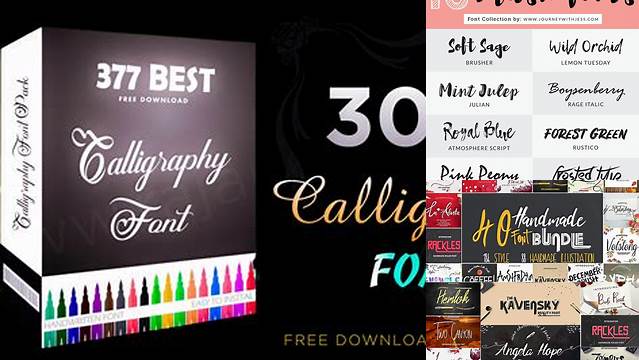
Free Font Package Download: Best Collection
Let's dive into the world of free font packages! Finding the perfect font can be a game-changer for any design project, whether you're crafting a stunning logo, designing a website, or creating eye-catching marketing materials. With countless options available, it's essential to know where to find high-quality, free font packages that won't break the bank. This article will guide you through the best resources and considerations for downloading and using free font packages to elevate your creative work.
3. Identifying High-Quality Fonts in Free Packages
Not all free font packages are created equal. Identifying high-quality fonts is essential to ensure your projects look professional. Look for fonts that are well-designed, with consistent letterforms and kerning (the spacing between letters). Check for a full character set, including uppercase and lowercase letters, numbers, punctuation, and symbols. A good font should also be available in multiple weights (e.g., regular, bold, italic) to provide versatility in your designs. Pay attention to the font's legibility, especially at smaller sizes. Readability is key for body text. Use font preview tools on websites like FontDrop to test the font with your own text and see how it looks in different contexts. Don't be afraid to experiment with different fonts and combine them to create unique typography. A little bit of effort in selecting high-quality free fonts can make a big difference in the overall impact of your designs.
7. Exploring Different Font Styles and Types
Free font packages come in a wide variety of styles and types, each with its own unique character and purpose. Serif fonts, with their small decorative strokes, are often used for body text because they are easy to read. Sans-serif fonts, without the serifs, are often used for headings and titles because they have a clean and modern look. Script fonts, which resemble handwriting, are often used for invitations and other decorative purposes. Display fonts, which are highly stylized and eye-catching, are often used for logos and posters. Monospace fonts, where each character takes up the same amount of horizontal space, are often used for coding and technical documentation. Experiment with different font styles and types to find the perfect fit for your project. Combine different fonts to create visual interest and hierarchy. A well-chosen font can enhance the overall message and aesthetic of your design.
8. Finding Free Fonts for Specific Languages
If you're working on a project that requires fonts for specific languages, finding free font packages that support those languages can be a challenge. Many free fonts only support basic Latin characters, so you'll need to look for fonts that include extended character sets or language-specific glyphs. Google Fonts is a great resource for finding free fonts that support a wide range of languages, including Cyrillic, Greek, Arabic, and many others. Font Squirrel also offers some multilingual fonts. When searching for fonts, use keywords like "Cyrillic font," "Arabic font," or "Japanese font" to narrow down your options. Be sure to test the font with your target language to ensure that all the characters are displayed correctly. If you can't find a free font that meets your needs, consider purchasing a commercial font that offers comprehensive language support.
9. Creating Your Own Font Package
While downloading free font packages is convenient, you can also create your own font package by combining individual free fonts that you like. This allows you to curate a collection of fonts that are specifically tailored to your design needs. Start by browsing websites like Google Fonts, Font Squirrel, and DaFont to find free fonts that you want to include in your package. Download the font files and organize them into a folder. You can then create a document that lists the fonts in your package, along with their licenses and any notes or recommendations for usage. This will make it easier to remember which fonts are included in the package and how they can be used. You can also create a preview image that shows the fonts in action. Sharing your font package with others can be a great way to give back to the design community. Just make sure that you have the necessary rights to distribute the fonts.
10. Optimizing Fonts for Web Use
If you're using free fonts on a website, it's important to optimize them for web use to ensure fast loading times and a good user experience. Large font files can significantly slow down your website, which can frustrate visitors and hurt your search engine rankings. To optimize your fonts, use a tool like Font Squirrel's Webfont Generator to convert your font files into web-friendly formats like WOFF and WOFF2. These formats are specifically designed for web use and are much smaller than traditional font formats like TTF and OTF. You can also use CSS to specify which font weights and styles should be loaded, which can further reduce file sizes. Consider using a Content Delivery Network (CDN) to host your fonts, which can improve loading times for visitors from different geographic locations. Finally, test your website on different devices and browsers to ensure that your fonts are rendering correctly. Optimizing free fonts for web use is an essential step in creating a fast and visually appealing website.
11. Pairing Fonts Effectively in Design Projects
Choosing the right font is important, but knowing how to pair fonts effectively is what takes your design to the next level. When working with free font packages, experiment with different combinations to find what works best for your project. A common technique is to pair a serif font with a sans-serif font. For example, you might use a serif font for the body text and a sans-serif font for the headings. This creates a visual contrast that helps to guide the reader's eye. Another approach is to use different weights of the same font family. For example, you might use a bold weight for the headings and a regular weight for the body text. This creates a subtle hierarchy that is easy on the eyes. Avoid pairing fonts that are too similar, as this can create a monotonous and uninteresting design. Also, be careful not to use too many different fonts in a single project, as this can create a cluttered and confusing look. A good rule of thumb is to stick to two or three fonts at most. Experiment with different font pairings to find what works best for your specific project and brand.
12. Finding Free Fonts for Logos and Branding
Your logo is the face of your brand, so choosing the right font is crucial. When searching for free font packages for logos and branding, look for fonts that are unique, memorable, and reflective of your brand's personality. Display fonts are often a good choice for logos, as they are designed to be eye-catching and attention-grabbing. However, make sure that the font is still legible, even at small sizes. Consider the overall tone and style of your brand when selecting a font. A serious and professional brand might opt for a clean and classic sans-serif font, while a fun and playful brand might choose a more whimsical and decorative font. Before settling on a font, test it in different contexts, such as on your website, business cards, and social media profiles. Make sure that the font looks good in all of these applications. Also, check the font license to ensure that you are allowed to use it for commercial purposes. A well-chosen font can help to create a strong and memorable brand identity.
13. Free Fonts for Print vs. Digital Use
When selecting free fonts, it's important to consider whether you'll be using them for print or digital projects. Fonts that look great on screen may not always translate well to print, and vice versa. For print projects, look for fonts that have sharp and well-defined letterforms. These fonts will produce clear and crisp results when printed. Avoid fonts that are too thin or delicate, as they may become difficult to read when printed at small sizes. For digital projects, look for fonts that are optimized for screen display. These fonts will typically have slightly thicker letterforms and wider spacing to improve readability on screens. You can also use CSS to adjust the font size, line height, and letter spacing to optimize the appearance of the font on different devices. If you're using a font for both print and digital projects, choose a font that is versatile enough to work well in both mediums. Alternatively, you can use different fonts for print and digital, but make sure that they complement each other and maintain a consistent brand identity.
14. The Importance of Kerning and Leading in Typography
Kerning (the spacing between individual letters) and leading (the spacing between lines of text) are essential elements of typography that can greatly impact the readability and visual appeal of your designs. When working with free font packages, pay attention to the kerning and leading of the fonts you choose. Poor kerning can make text look awkward and difficult to read, while insufficient leading can make lines of text feel cramped and crowded. Many free fonts have built-in kerning tables that automatically adjust the spacing between letters, but you may still need to make manual adjustments to fine-tune the appearance of the text. In design software like Adobe InDesign, you can use the kerning and tracking tools to adjust the spacing between letters. Similarly, you can use the leading tool to adjust the spacing between lines of text. Experiment with different kerning and leading values to find what works best for your specific font and layout. Proper kerning and leading can make a big difference in the overall quality of your typography.
15. How to Stay Updated on New Free Font Releases
New free fonts are being released all the time, so it's important to stay updated on the latest releases if you want to keep your font library fresh and current. One way to stay informed is to subscribe to newsletters from font websites like Google Fonts, Font Squirrel, and Creative Market. These newsletters will often announce new free font releases and special promotions. You can also follow these websites on social media to get updates on new fonts. Another way to discover new free fonts is to browse design blogs and forums. These resources often feature articles and discussions about typography and font design. You can also use font identification tools like WhatTheFont and Font Matcherator to identify fonts that you see in the wild and then search for free alternatives. Finally, consider joining online design communities and participating in discussions about typography. This is a great way to learn about new fonts and get recommendations from other designers. By staying updated on new free font releases, you can keep your designs looking fresh and modern.
16. Using Free Fonts for Social Media Graphics
Creating eye-catching social media graphics is essential for building your brand and engaging with your audience. Using the right fonts can make a big difference in the effectiveness of your graphics. When selecting free fonts for social media, consider the platform you'll be using and the overall tone and style of your brand. For example, Instagram graphics might benefit from more playful and visually striking fonts, while LinkedIn graphics might require more professional and polished fonts. Ensure the fonts you choose are legible on both desktop and mobile devices, as a significant portion of social media users access content on their smartphones. Platforms like Canva and Adobe Spark offer a wide range of templates and tools that make it easy to create social media graphics with free fonts. Experiment with different font pairings and design elements to create graphics that stand out from the crowd. Always adhere to the font licenses and give attribution when required.
17. Combining Free Fonts with Premium Fonts
While free font packages offer a wide range of options, sometimes you might need to supplement them with premium fonts to achieve the desired look and feel for your project. Combining free fonts with premium fonts can be a cost-effective way to create unique and professional designs. When combining fonts, choose fonts that complement each other in terms of style, weight, and overall aesthetic. For example, you might use a premium font for the headings and a free font for the body text. Alternatively, you could use a free font for the logo and a premium font for the supporting text. Before purchasing a premium font, test it with your existing free fonts to see how well they work together. Make sure that the premium font is compatible with your design software and that you have the necessary licenses to use it for commercial purposes. Combining free fonts with premium fonts can give you the best of both worlds: affordability and high-quality design.
18. Creating Font Combinations for Websites
Choosing the right font combinations for your website is crucial for creating a visually appealing and user-friendly experience. When selecting free font packages for your website, consider the overall design and branding of your site. Choose fonts that are easy to read, even at small sizes, and that are optimized for screen display. A common approach is to use one font for the headings and another font for the body text. This creates a visual hierarchy that helps to guide the reader's eye. For example, you might use a bold sans-serif font for the headings and a clean serif font for the body text. Alternatively, you could use different weights of the same font family to create a more subtle contrast. Use CSS to control the font size, line height, and letter spacing to optimize the appearance of the text on different devices. Test your website on different browsers and screen resolutions to ensure that the fonts are rendering correctly. A well-chosen font combination can enhance the overall look and feel of your website and improve the user experience.
19. Free Fonts for Presentations and Slideshows
Creating visually engaging presentations and slideshows is essential for capturing your audience's attention and conveying your message effectively. When selecting free font packages for your presentations, choose fonts that are clear, legible, and easy to read from a distance. Avoid fonts that are too thin or decorative, as they may be difficult to see on a large screen. Use different font sizes and weights to create a visual hierarchy and emphasize key points. For example, you might use a large and bold font for the slide titles and a smaller font for the body text. Use bullet points and other formatting techniques to break up large blocks of text and make the content more digestible. Choose font colors that contrast well with the background color to improve readability. Test your presentation on different projectors and screens to ensure that the fonts are rendering correctly. A well-designed presentation with the right fonts can help you deliver a clear and impactful message.
20. Using Free Fonts in Mobile App Design
Designing mobile apps requires careful consideration of typography to ensure a seamless and user-friendly experience. When choosing free font packages for your mobile app, prioritize readability and legibility on small screens. Opt for fonts that are clean, clear, and optimized for mobile devices. Sans-serif fonts are often a good choice for mobile apps, as they tend to be easier to read on screens than serif fonts. Pay attention to the font size, line height, and letter spacing to ensure that the text is comfortable to read. Use different font weights and styles to create a visual hierarchy and guide users through the app's interface. Test your app on different devices and screen sizes to ensure that the fonts are rendering correctly. A well-chosen font can enhance the overall user experience and make your app more enjoyable to use.
21. Understanding OpenType Features in Free Fonts
OpenType is a font format that offers advanced typographic features, such as ligatures, swashes, small caps, and stylistic alternates. When downloading free font packages, check to see if the fonts support OpenType features. These features can add a touch of elegance and sophistication to your designs. Ligatures are special characters that combine two or more letters into a single glyph, which can improve the appearance of certain letter combinations. Swashes are decorative flourishes that extend from certain letters. Small caps are uppercase letters that are scaled down to the height of the lowercase letters. Stylistic alternates are alternative versions of certain characters that can be used to customize the appearance of the text. To access OpenType features, you'll need to use design software that supports them, such as Adobe InDesign or Adobe Illustrator. Experiment with different OpenType features to see how they can enhance your typography.
22. Finding Free Fonts with Extended Character Sets
If you need to use fonts that support languages other than English, you'll need to find free font packages with extended character sets. Extended character sets include characters from various languages, such as Cyrillic, Greek, and Arabic. Google Fonts is a great resource for finding free fonts with extended character sets. You can use the language filters to narrow down your search to fonts that support specific languages. Font Squirrel also offers some multilingual fonts. When downloading fonts with extended character sets, make sure that they include all the characters you need for your project. Test the fonts with your target language to ensure that the characters are rendering correctly. If you can't find a free font with the required character set, you may need to purchase a commercial font.
23. Creating Font Mood Boards for Inspiration
When starting a new design project, it can be helpful to create a font mood board to gather inspiration and explore different typographic styles. A font mood board is a collection of fonts, images, and other visual elements that reflect the desired look and feel of your project. You can create a font mood board by browsing websites like Pinterest and Behance and collecting fonts and images that you find appealing. You can also create your own images by experimenting with different fonts and typographic layouts. Organize your mood board into categories, such as headings, body text, and accents. Use your mood board to guide your font selection process and help you create a cohesive and visually appealing design. Creating a font mood board can save you time and effort by helping you narrow down your options and focus on the fonts that are most relevant to your project.
24. Using Free Fonts for Email Marketing Campaigns
Email marketing campaigns require careful attention to typography to ensure that your messages are readable and engaging. When selecting free font packages for your email campaigns, choose fonts that are clear, legible, and optimized for email clients. Avoid fonts that are too decorative or unconventional, as they may not render correctly in all email clients. Use a limited number of fonts to maintain a consistent look and feel across your campaigns. Pay attention to the font size, line height, and letter spacing to ensure that the text is easy to read on different devices. Use different font weights and styles to create a visual hierarchy and highlight important information. Test your email campaigns in different email clients and devices to ensure that the fonts are rendering correctly. A well-designed email campaign with the right fonts can help you increase engagement and drive conversions.
25. How to Attribute Free Fonts Properly
When using free fonts, it's important to attribute them properly, especially if the font license requires attribution. Attribution is the act of giving credit to the font designer or distributor. The specific requirements for attribution vary depending on the font license. Some licenses require you to include the font name and designer's name in your design, while others require you to include a link to the font's website. Always read the font license carefully to understand the attribution requirements. If you're unsure about how to attribute a font, you can contact the font designer or distributor for clarification. You can typically include attribution information in the credits section of your website, in the description of your design project, or in a separate document that accompanies your design. Giving proper attribution is not only ethical but also helps to support the designers and distributors who create and share free fonts.
26. Free Fonts for Resumes and Cover Letters
Choosing the right fonts for your resume and cover letter can make a significant difference in how your application is perceived. When selecting free font packages for your resume and cover letter, opt for fonts that are professional, easy to read, and appropriate for the industry you're applying to. Classic serif fonts like Times New Roman and Georgia are often a safe choice, but you can also consider clean sans-serif fonts like Arial or Helvetica. Avoid fonts that are too decorative or unconventional, as they may distract from your qualifications. Use a consistent font throughout your resume and cover letter to maintain a polished and professional look. Pay attention to the font size, line height, and letter spacing to ensure that the text is easy to read. Proofread your resume and cover letter carefully to ensure that there are no errors. A well-designed resume and cover letter with the right fonts can help you make a positive impression on potential employers.
27. Using Free Fonts for Ebooks and Digital Publications
When designing ebooks and digital publications, typography plays a crucial role in creating a comfortable and engaging reading experience. When selecting free font packages for your ebooks, choose fonts that are optimized for screen display and that are easy to read on different devices. Serif fonts are often a good choice for body text, as they tend to be more readable than sans-serif fonts for long passages of text. Pay attention to the font size, line height, and letter spacing to ensure that the text is comfortable to read. Use different font weights and styles to create a visual hierarchy and highlight important information. Test your ebooks on different e-readers and devices to ensure that the fonts are rendering correctly. A well-designed ebook with the right fonts can enhance the reading experience and keep readers engaged.
28. Free Fonts for Infographics and Data Visualization
Infographics and data visualizations rely heavily on typography to communicate information clearly and effectively. When selecting free font packages for your infographics, choose fonts that are clean, legible, and easy to read at a glance. Sans-serif fonts are often a good choice for infographics, as they tend to be more modern and visually appealing than serif fonts. Use different font sizes and weights to create a visual hierarchy and emphasize key data points. Choose font colors that contrast well with the background color to improve readability. Use labels and annotations to explain the data and provide context. Test your infographics on different devices and screen sizes to ensure that the fonts are rendering correctly. A well-designed infographic with the right fonts can help you communicate complex information in a clear and engaging way.
29. The Future of Free Fonts and Typography
The world of free fonts and typography is constantly evolving, with new technologies and trends shaping the way we design and communicate. As screen resolutions continue to improve, we can expect to see more fonts that are optimized for high-resolution displays. Variable fonts, which allow for dynamic adjustments to font weight, width, and other parameters, are likely to become more prevalent. Artificial intelligence and machine learning may play a role in font design, helping designers create more innovative and personalized typefaces. Open-source font projects are likely to continue to grow in popularity, providing designers with access to a wider range of free and collaborative fonts. The future of free fonts and typography is bright, with exciting possibilities for creativity and innovation.
30. Resources for Learning More About Typography
If you're interested in learning more about typography, there are many excellent resources available online and in print. Websites like I Love Typography and Typographica offer articles, tutorials, and inspiration for designers of all skill levels. Books like "The Elements of Typographic Style" by Robert Bringhurst and "Thinking with Type" by Ellen Lupton are considered classics in the field of typography. Online courses and workshops, such as those offered by Skillshare and CreativeLive, can provide in-depth training in typography and design. Design blogs and forums are also great resources for staying up-to-date on the latest trends and techniques. By investing in your knowledge of typography, you can improve your design skills and create more effective and visually appealing communications.